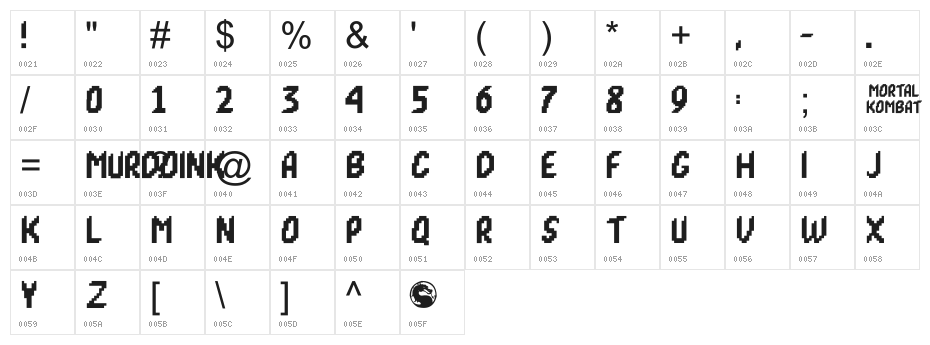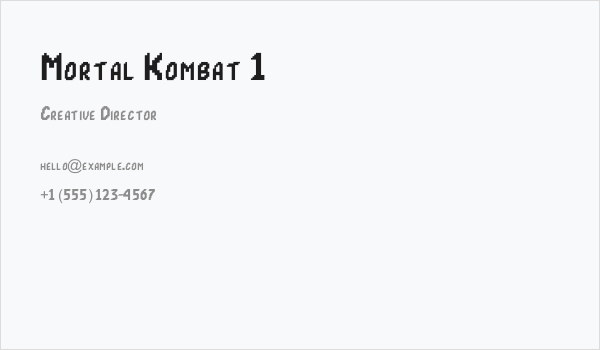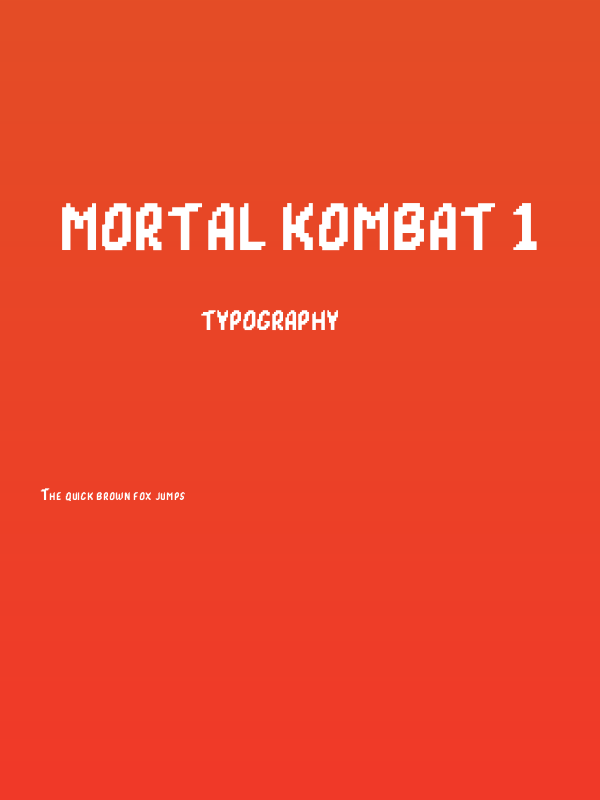
Mortal Kombat 1 Font
Mortal Kombat 1 Description
This font features a bold, pixelated design reminiscent of classic video game aesthetics. Each character is constructed with a blocky, geometric style, emphasizing sharp angles and straight lines. The uppercase and lowercase letters maintain a consistent height, contributing to a uniform appearance. The numerals and special characters follow the same pixelated theme, ensuring cohesive visual harmony across all glyphs. This font's retro appeal is perfect for projects seeking a nostalgic or digital vibe.
| Overall Style | Retro, Digital |
| Proposed Projects | Ideal for video game design, retro-themed posters, digital art, and any project requiring a nostalgic touch. |